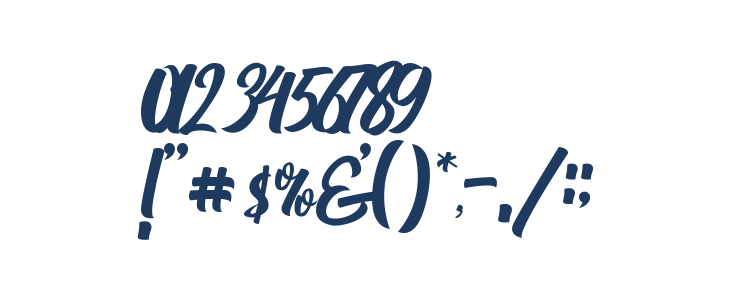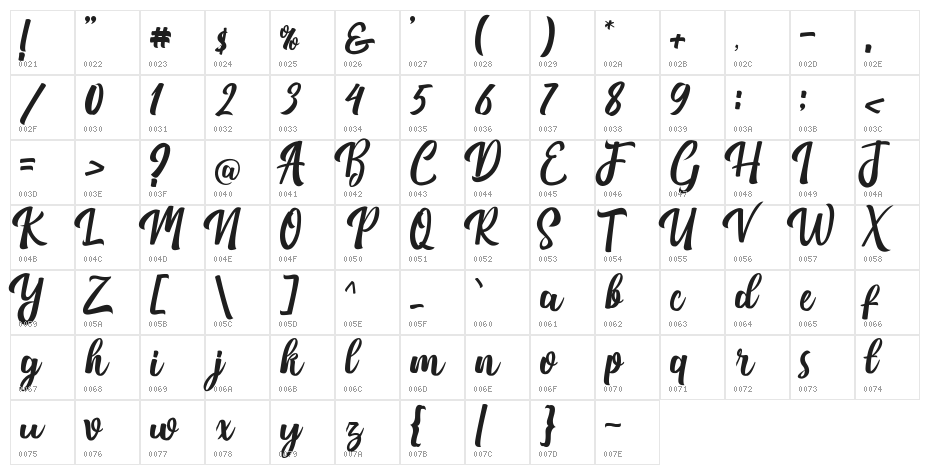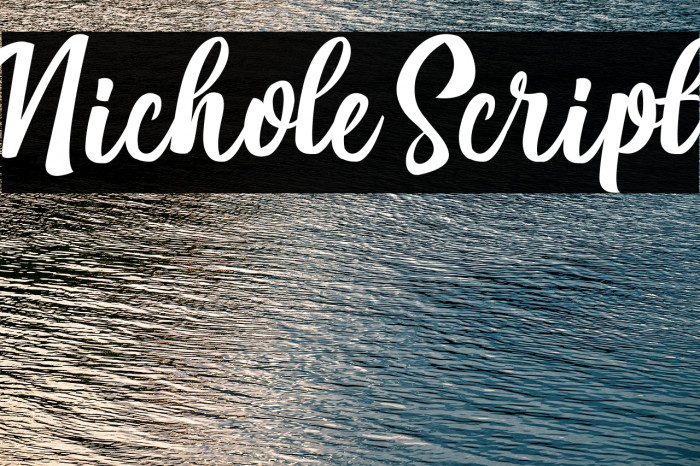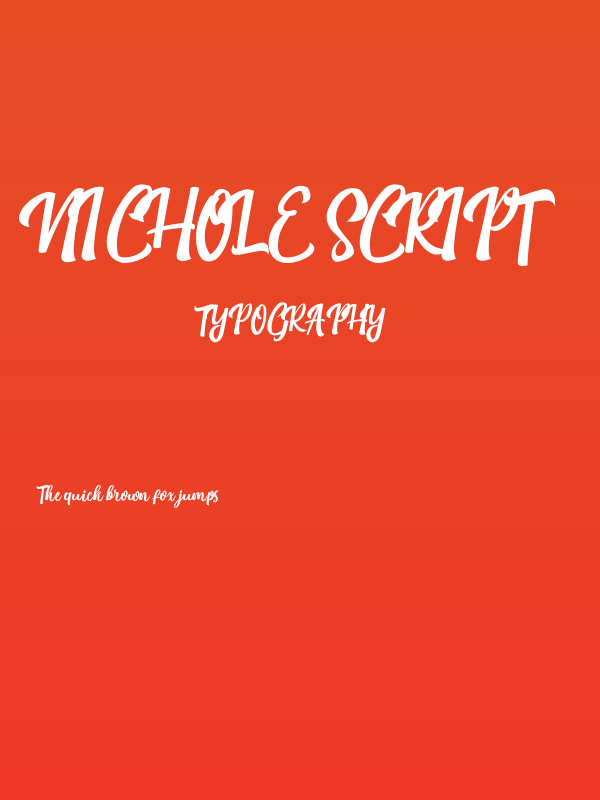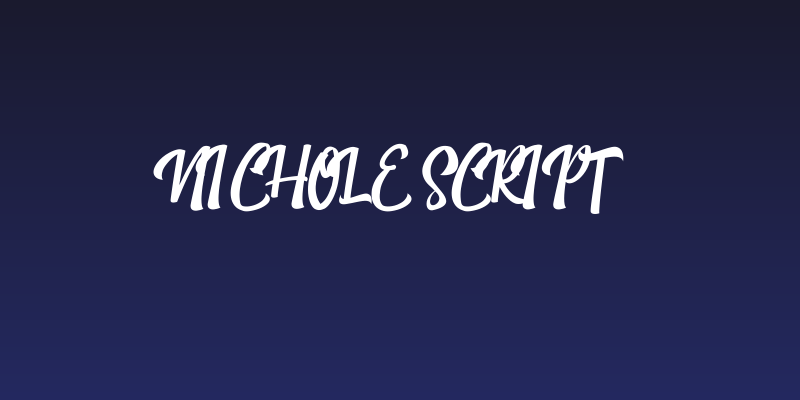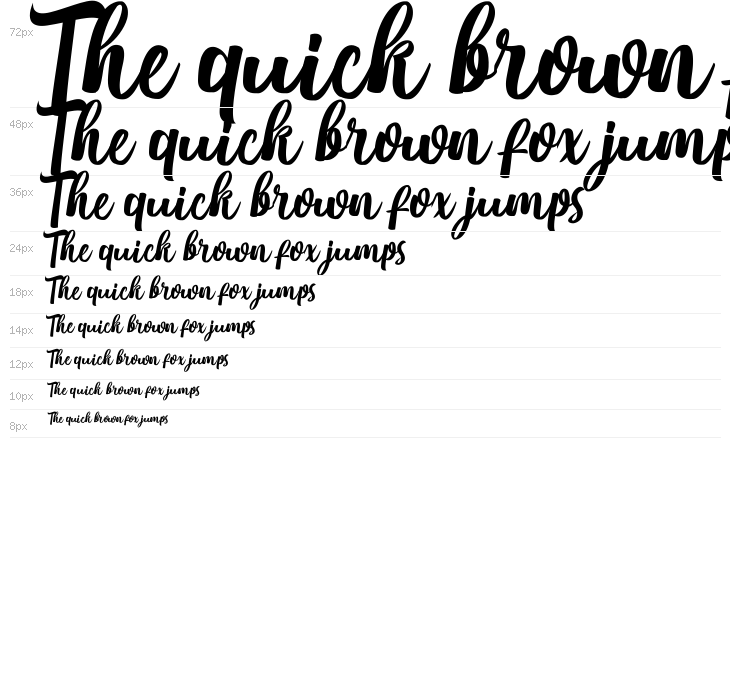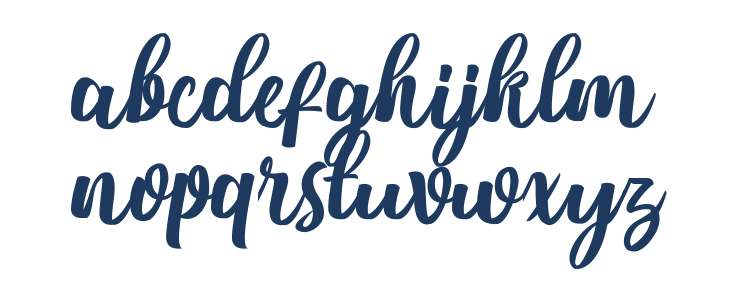
Nichole Script Font
Nichole Script Description
This script font exudes a lively and dynamic character, with its bold and flowing strokes that mimic the fluidity of natural handwriting. The uppercase letters are particularly striking, featuring exaggerated curves and loops that add a sense of movement and elegance. The lowercase letters maintain a consistent style, with smooth connections that enhance readability while preserving the font's artistic flair. Numbers and special characters are crafted with the same attention to detail, ensuring a cohesive look across all text elements. The font's overall appearance is both playful and sophisticated, making it suitable for a variety of creative applications.
| Use Case | Logos, Invitations, Decorative text |
| Proposed Projects | Ideal for wedding invitations, greeting cards, branding projects, and social media graphics. |